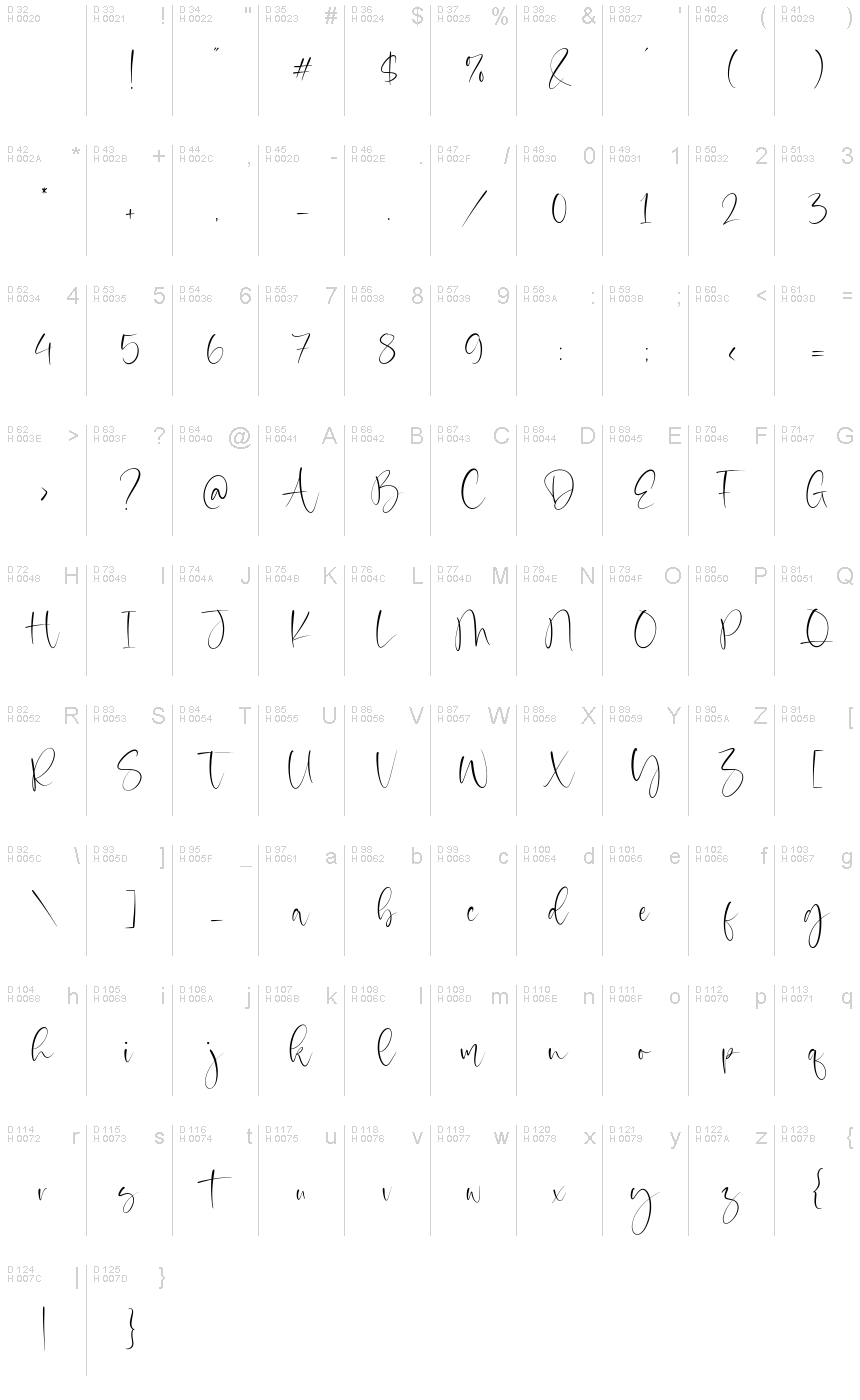
Valentine Beauty
Valentine Beauty font is an elegant and airy typeface by Timur Type. The free font features a cursive style with thin flowing lines and moderate contrast for a casual yet sophisticated finish. Ease of legibility and artistic flair are achieved through its design that combines loops, strokes, curves, swashes making it truly eye-catching.